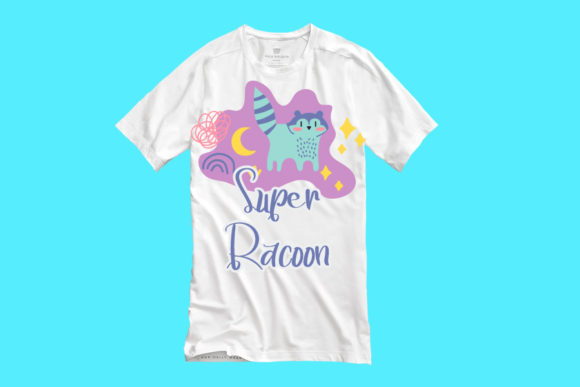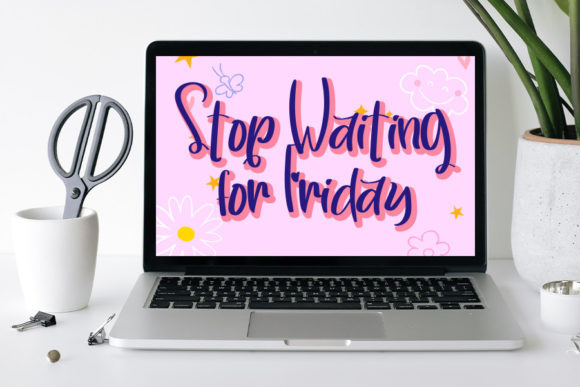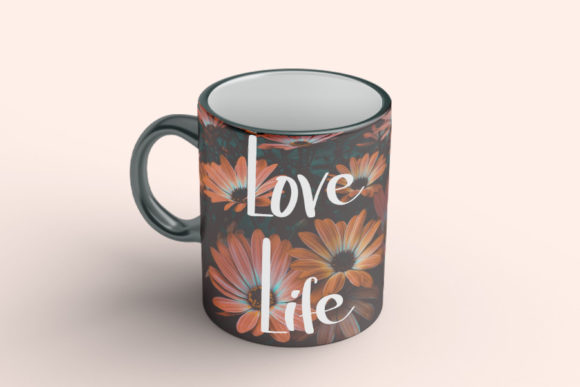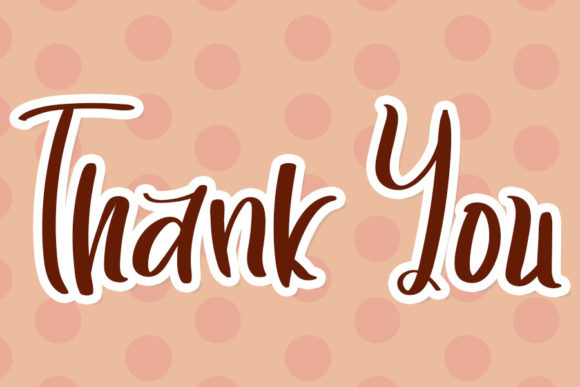
Introduction to Eid Fitri Font Font
Fonts play a crucial role in design, and the Eid Fitri Font font is a typeface that brings both character and versatility to any project. Whether you’re working on a branding project, a website, or a print design, the Eid Fitri Font font offers a unique style that can elevate your work.
Eid Fitri is a chic and whimsical handwritten font.
It has a modern and unique style and it will undoubtedly immerse your designs into a magical world .
Key Features of Eid Fitri Font Font
Why Choose Eid Fitri Font Font?
The Eid Fitri Font font is more than just a typeface – it’s a design tool that helps you communicate your message with style and clarity. Its unique character set and versatile design make it suitable for a wide range of applications, from elegant invitations to bold headlines.
With its carefully crafted letterforms and balanced proportions, the Eid Fitri Font font ensures readability and visual appeal across all mediums.
What makes Eid Fitri Font font special?
The Eid Fitri Font font stands out with its unique design, exceptional readability, and versatility across various design applications.